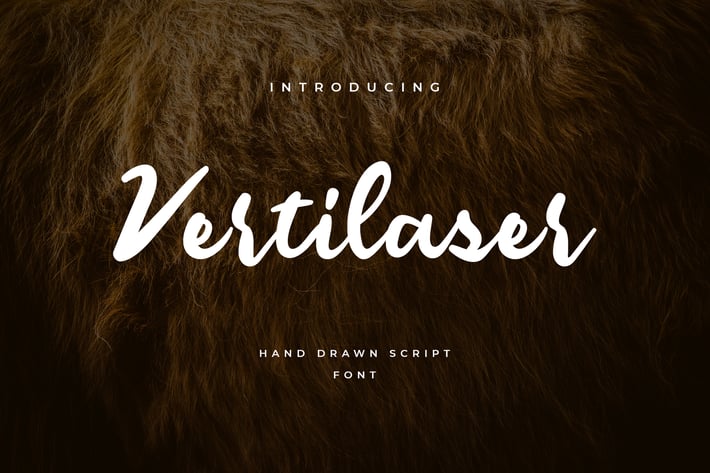
Vertilaser Handwritten Font
Vertilaser is perfect Handwritten Font for branding projects, logo, wedding designs, social media posts, advertisements, product packaging, product designs, label, photography, watermark, invitation, stationery and any projects that need handwriting taste.
This font has feeling of playful joyfulness and a genuine hand-lettered appearancebook covers, stationery, marketing, magazines, film, logo, branding, poster and other printing design.